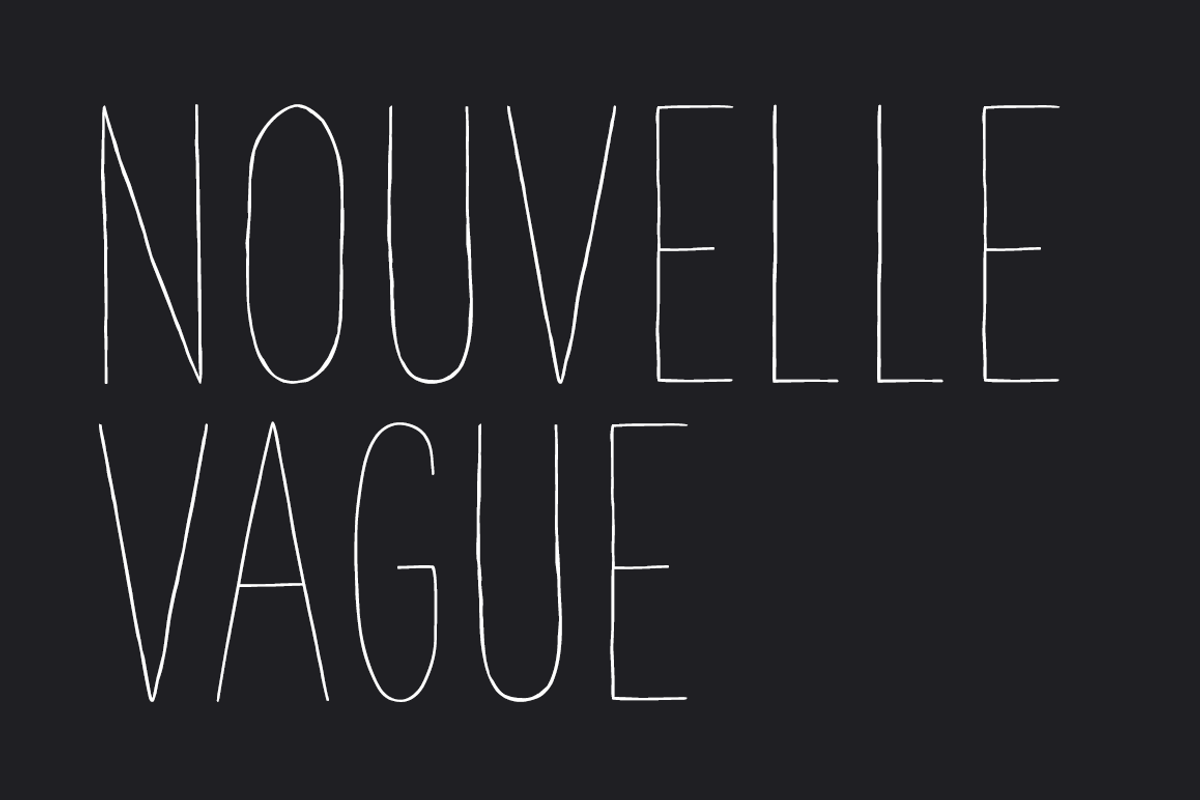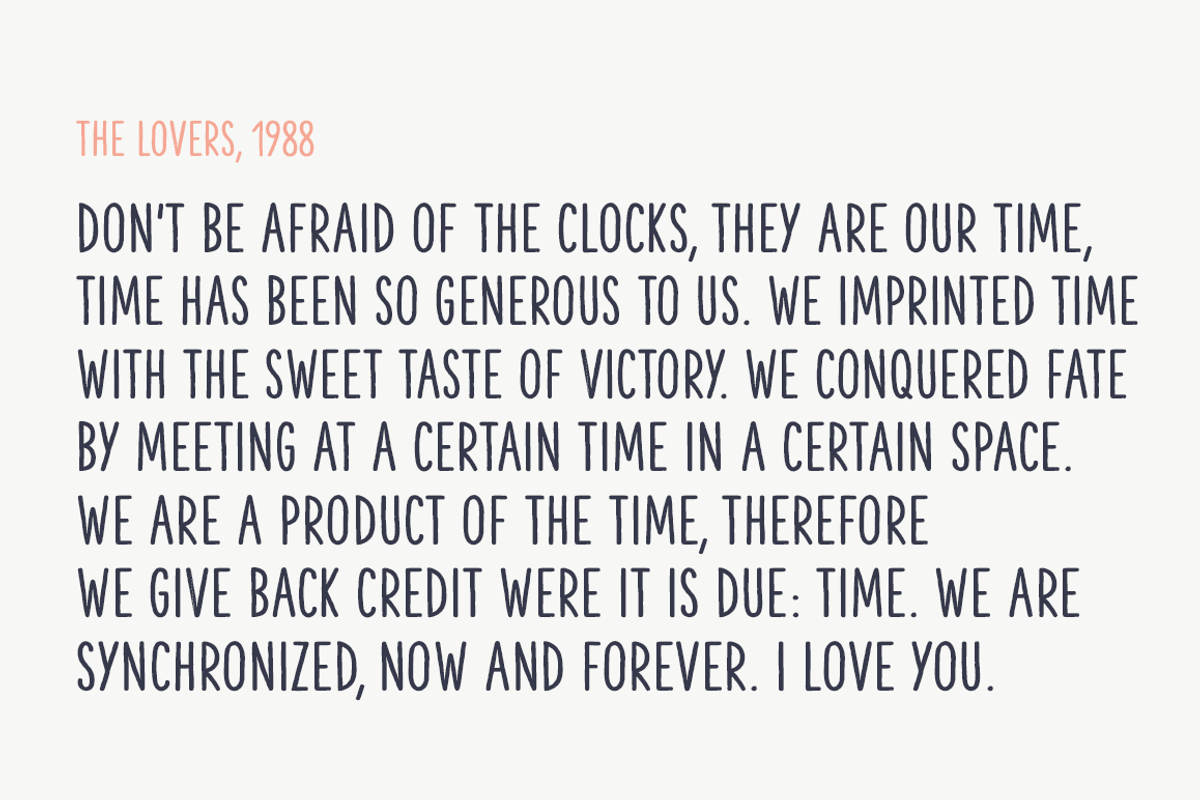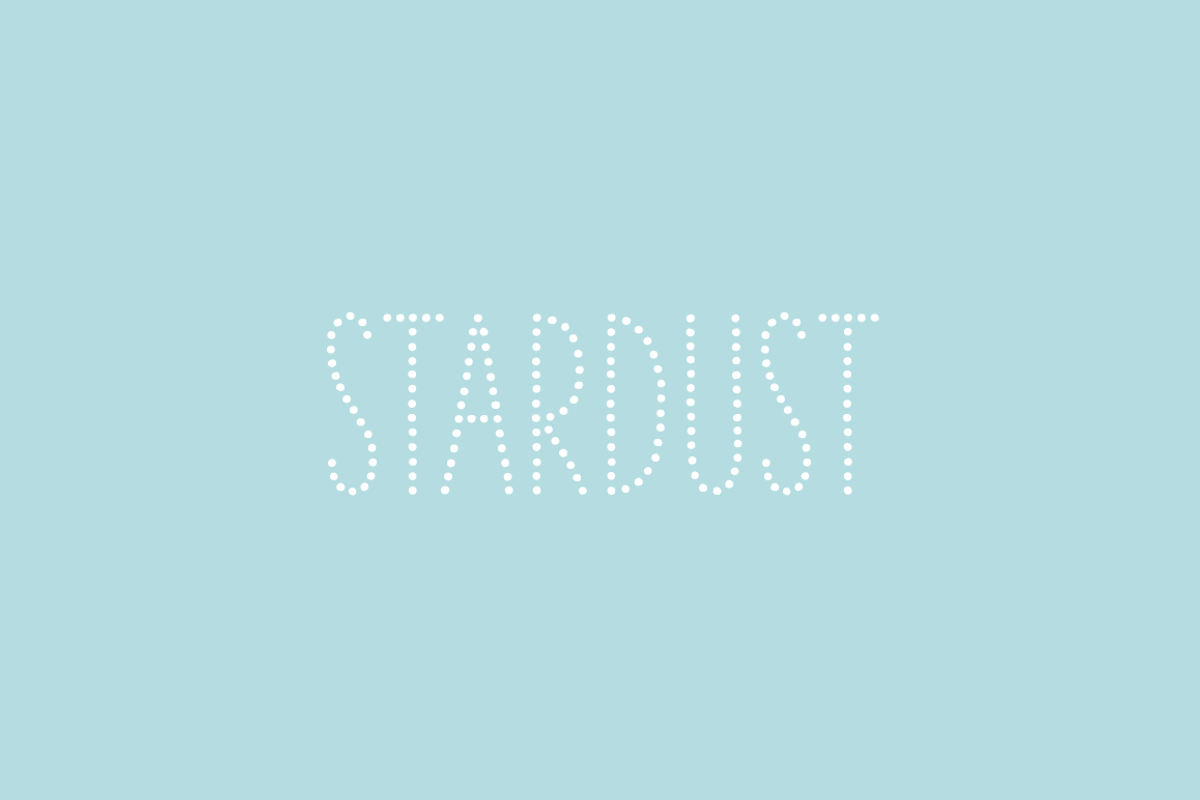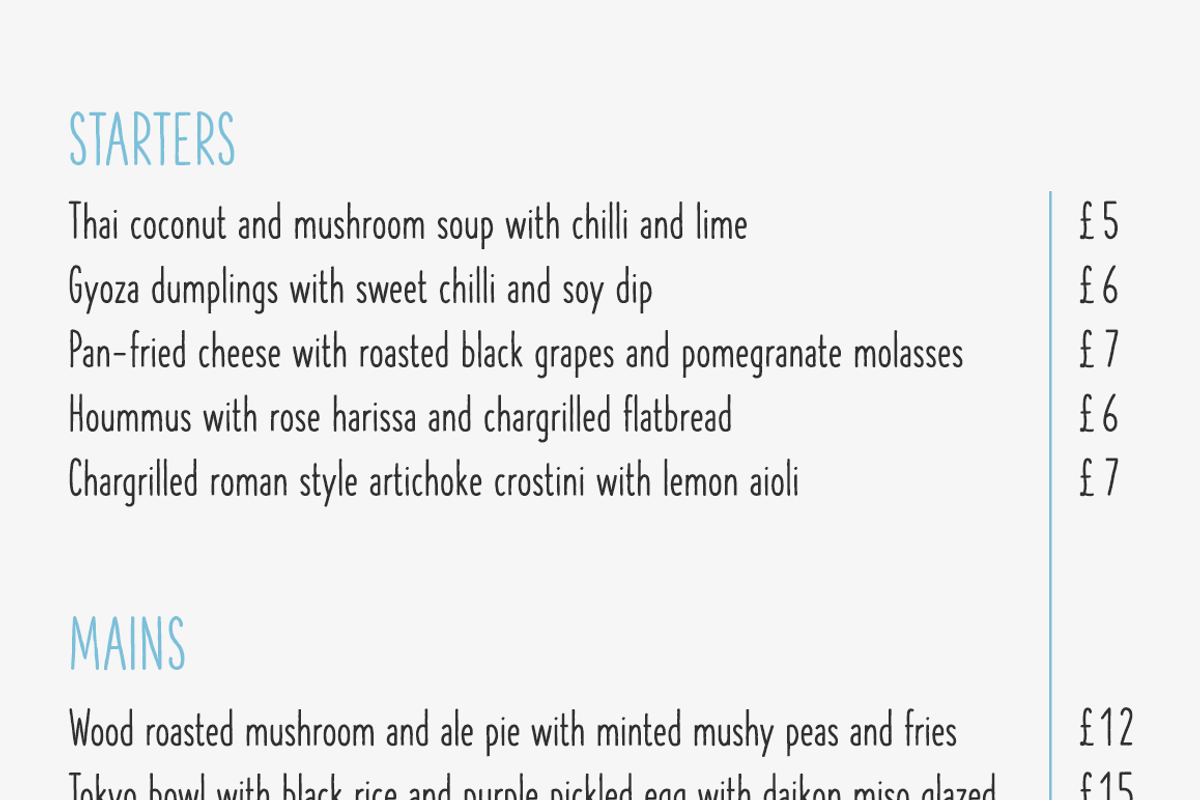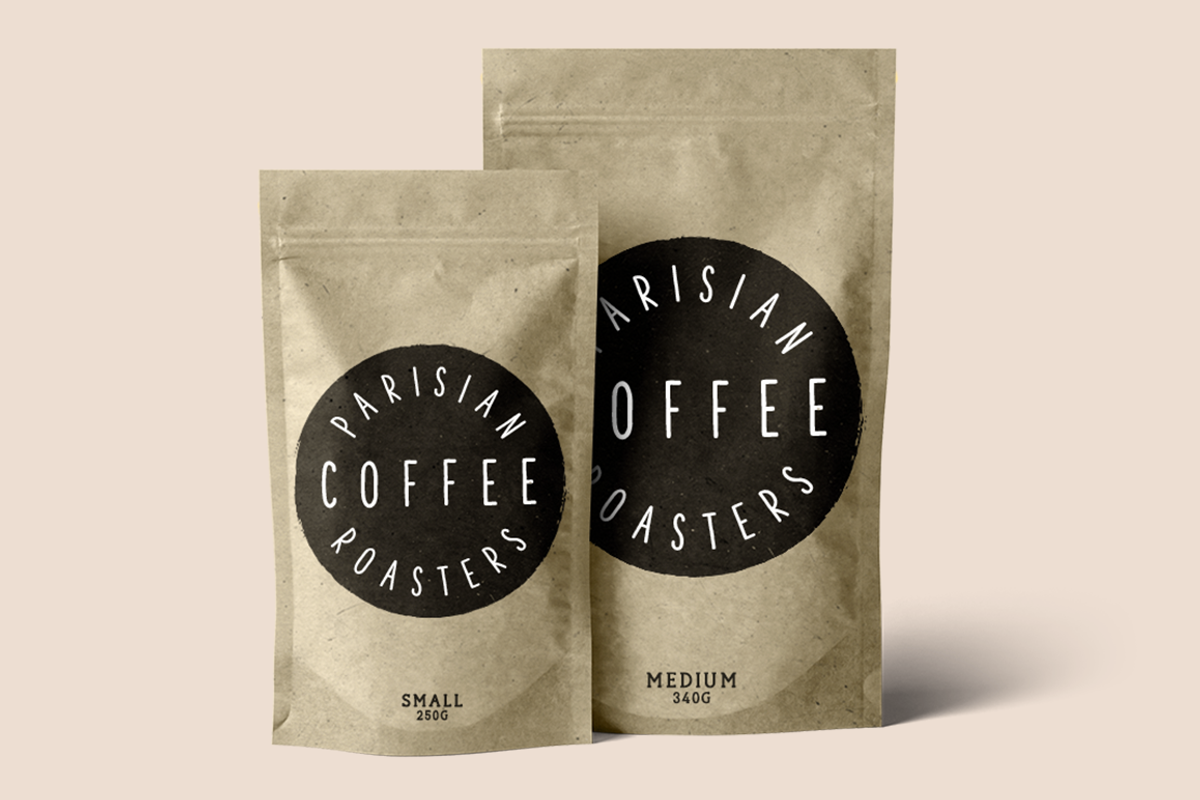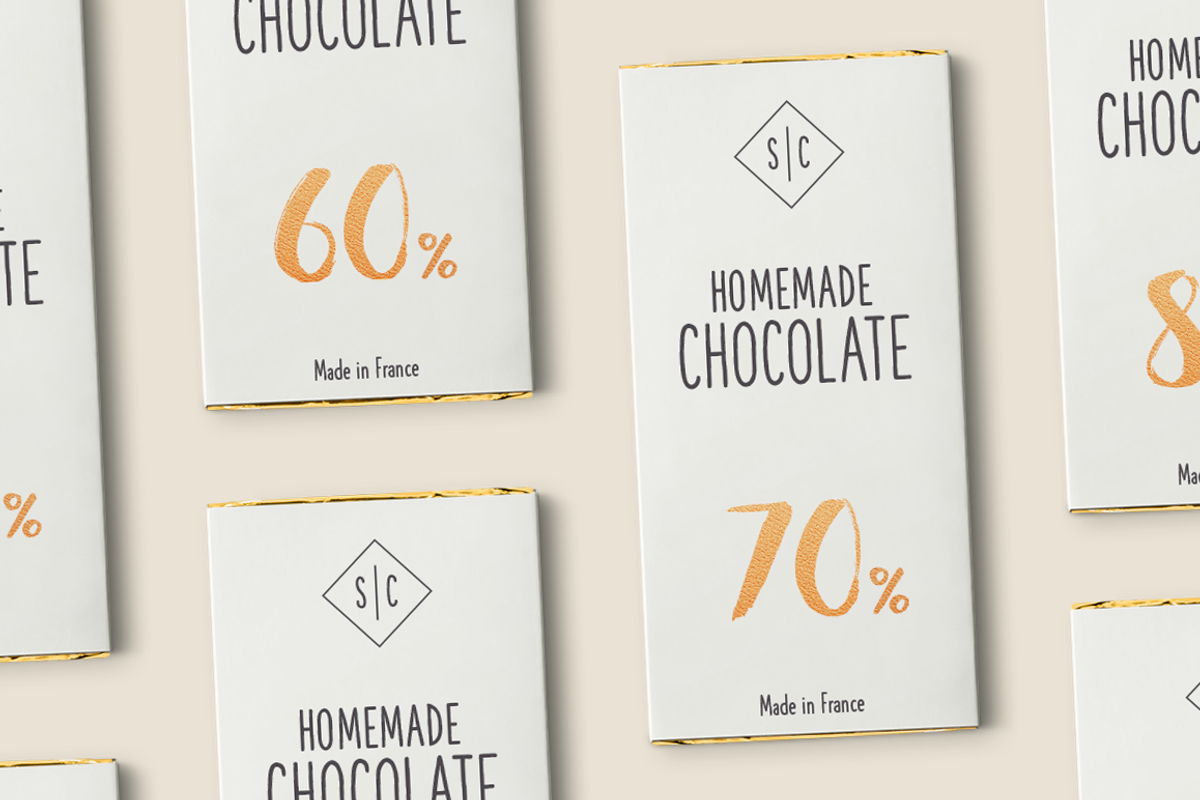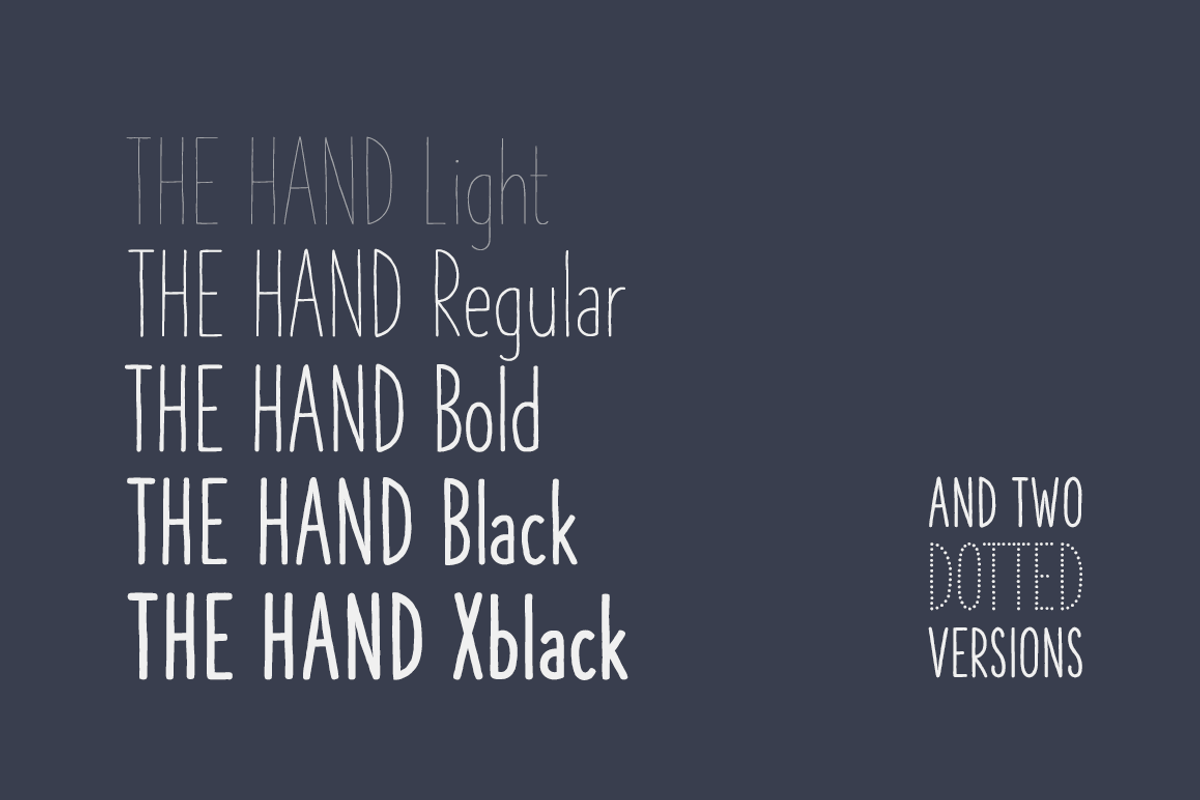
The Hand Font Collection (7 fonts)
The Hand Font Collection (7 fonts) by S&C Type is a font selected for branding, posters, packaging, typography.
Why The Hand Font Collection (7 fonts) is worth a look
The Hand Font Collection (7 fonts) by S&C Type fits naturally into Branding, posters, packaging, typography.